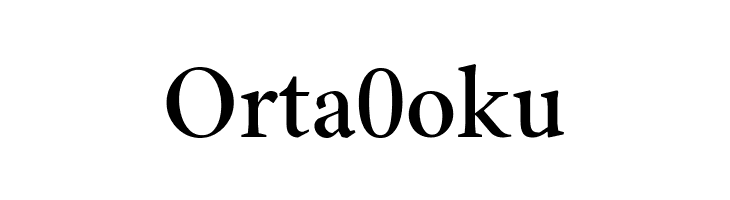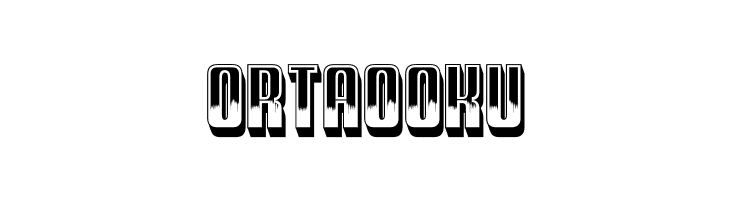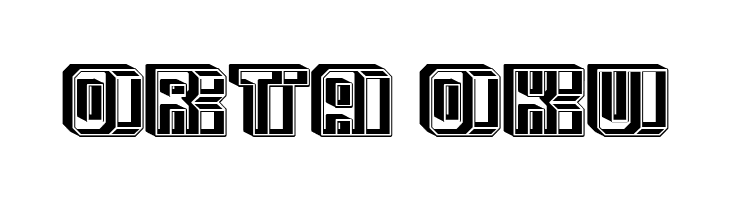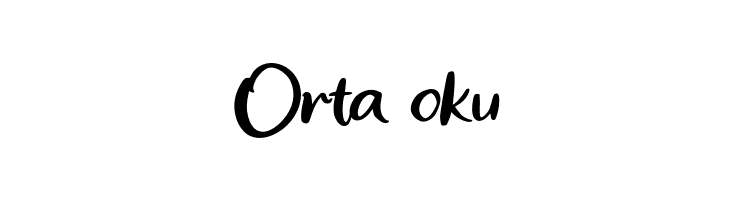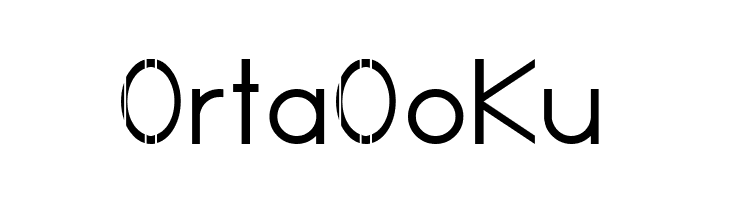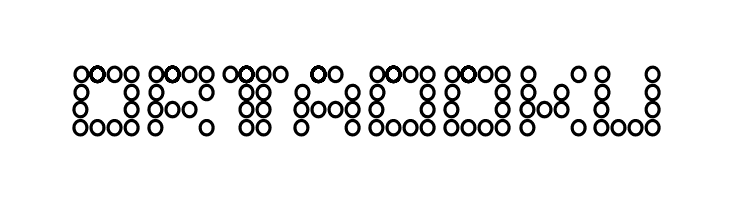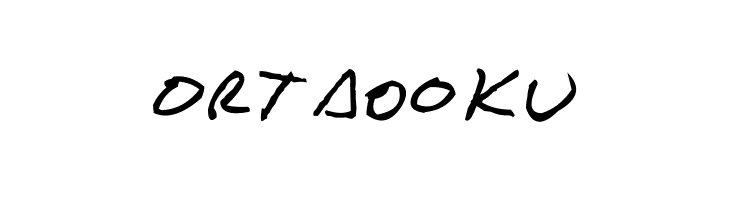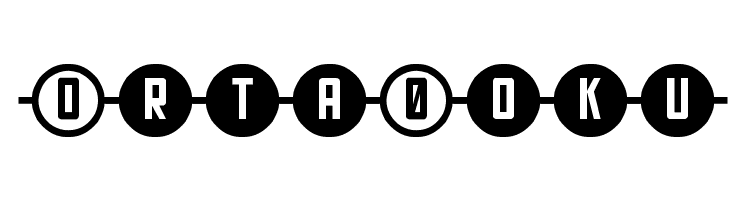
A playful, rounded font with a subtle shadow effect, offering a friendly and creative style.
A bold, playful font with rounded and angular elements, perfect for creative projects.
A playful, bold font with shadow effects and rounded characters.
A bold, 3D outlined font with a dynamic shadow effect.
A bold, decorative font with a three-dimensional effect and vintage appeal.
A bold, expressive script font with dynamic flow and calligraphic elegance.
A bold, dynamic script font with a handwritten appearance.
A bold, geometric font with a 3D effect and intricate cutouts.
A bold, geometric font with a three-dimensional, puzzle-like design.
A modern, geometric font with subtle curves and a playful touch.
A bold, futuristic font with sharp, angular lines and geometric structure.
A bold, modern font with rounded edges and consistent stroke width.
A charming handwritten font with fluid, elegant strokes and a playful yet refined style.
A bold, rounded, and slightly italic font with a modern and approachable style.
A modern outline font with clean, geometric shapes and a hollow effect.
A modern, cursive script font with bold, flowing strokes and elegant connections.
An elegant script font with intricate swashes and a sophisticated, artistic style.
An elegant script font with flowing, interconnected letters and artistic swashes.
A modern, elegant font with high contrast and decorative elements.
An elegant and artistic font with elongated letterforms and decorative elements.
A bold, flowing script font with elegant curves and a strong presence.
A bold, flowing script font with elegant curves and dynamic style.
A dynamic and elegant script font with flowing, cursive letterforms and high contrast.
A dynamic and elegant script font with fluid, calligraphic strokes.
A bold, textured font with a vintage, handcrafted look.
A bold, geometric font with a futuristic and industrial aesthetic.
A geometric, three-dimensional font with a block-like, architectural design.
A bold, geometric font with a 3D effect and modern, decorative style.
A bold, geometric font with angular shapes and a futuristic style.